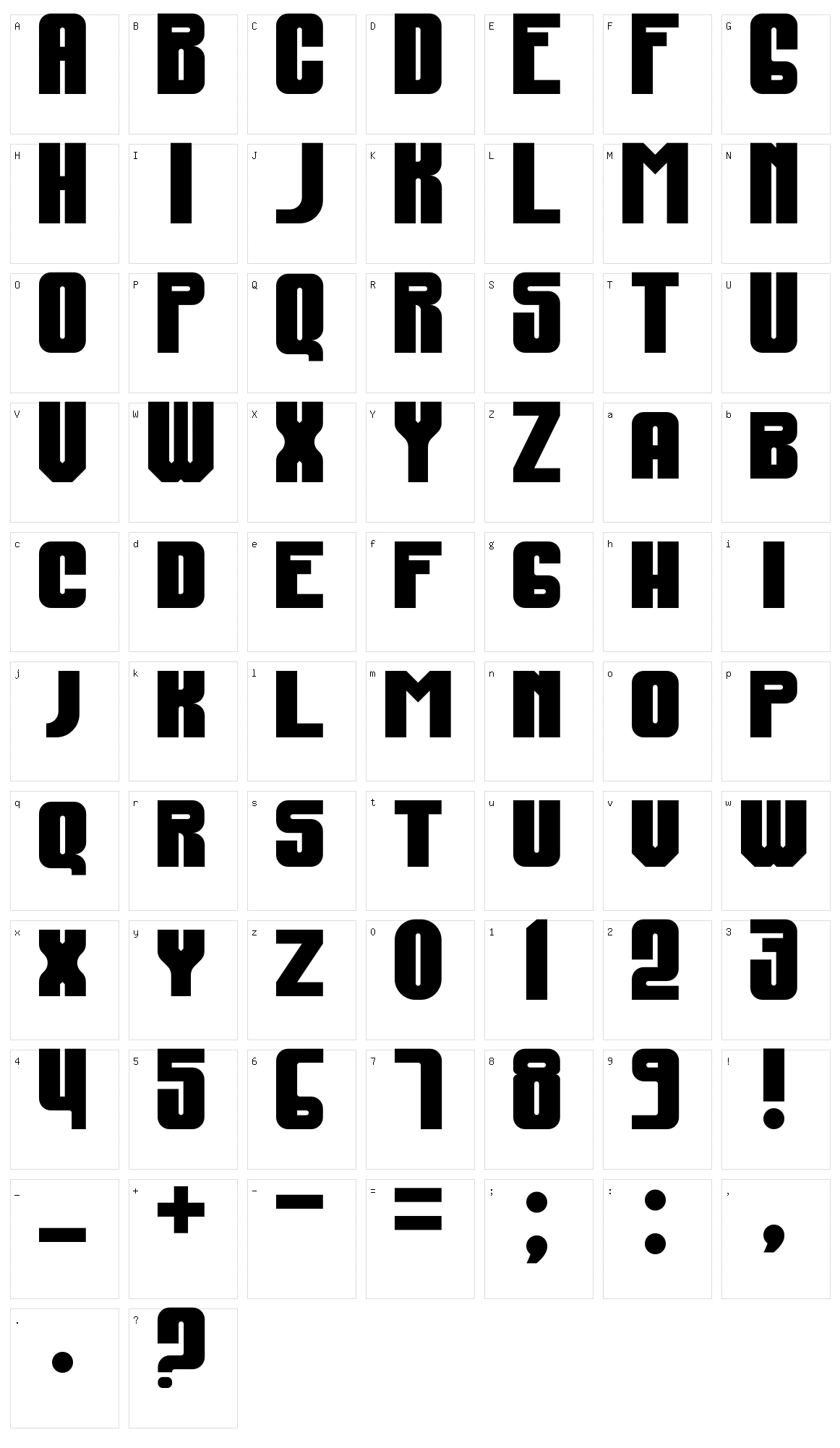
The free font Fest 235 is carefully designed by Rico Rifa'i, showcasing a thoughtful balance of creativity and usability and falls under the Groovy font style. When you download the ZIP file, it contains only 6.37 KB of font files, making it lightweight and quick to download. Please review the license details below to understand permitted usage and distribution rights. If license information is not available, we recommend using this font for personal projects only or contacting the author directly for commercial usage permissions.